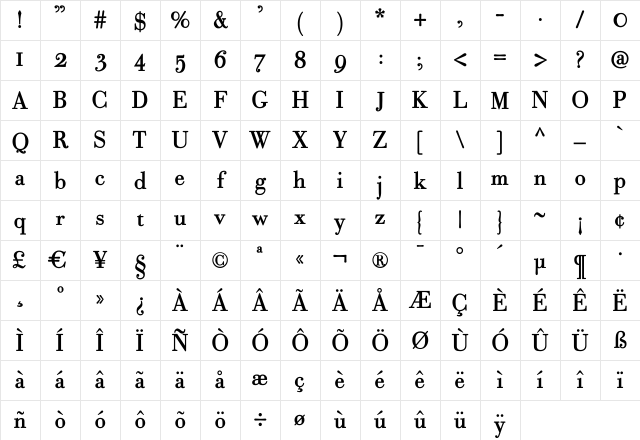
Robusta Roman Free Font
Robusta Roman
Foundry: Gert Wiescher, Wiescher-Design, Munich, Germany, www.wiescher-design.de
Robusta Family
Robusta Roman
Design Context for Robusta
Robusta is a composed and adaptable typeface that performs quietly and consistently across a wide range of design contexts.
Who designed the Robusta Roman font?